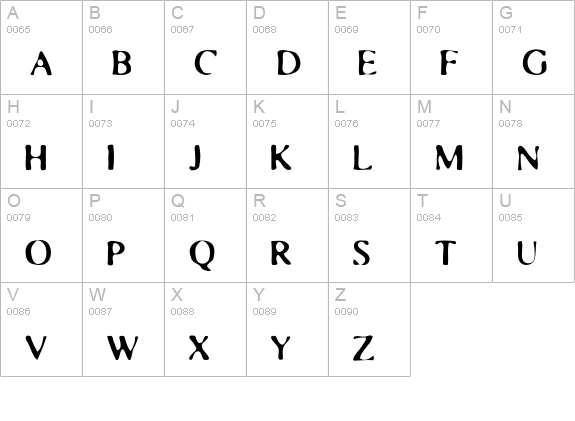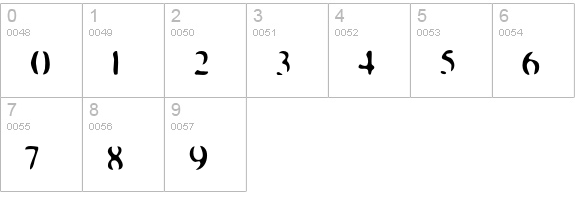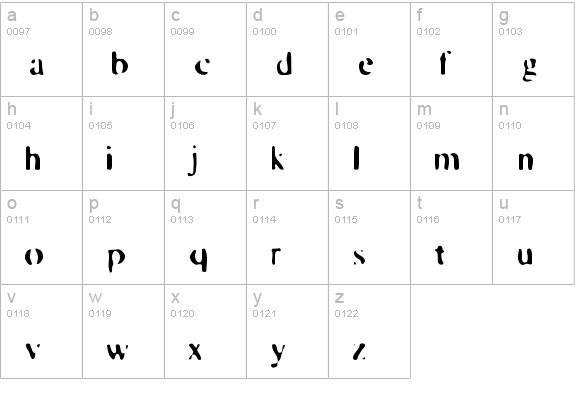
Blearex Font Details
Introducing Blearex font, a stunning typeface that strikes the perfect balance between modernity and elegance. With its sleek lines and unique character shapes, Blearex adds a touch of sophistication to any design project. This versatile font is ideal for branding, logos, headlines, and much more. What makes Blearex font even more appealing is that it is completely free to download at FontsMarket.com. Yes, you read that right - this premium quality font can be yours without any cost. So, why wait? Enhance your creations with Blearex font today and take your designs to the next level.